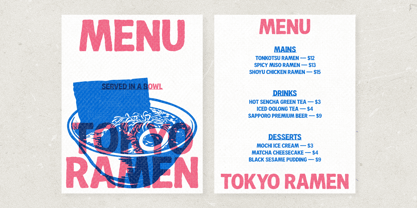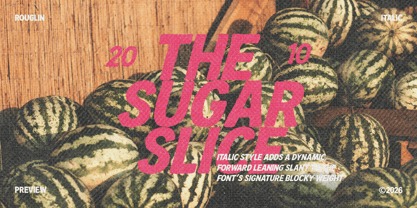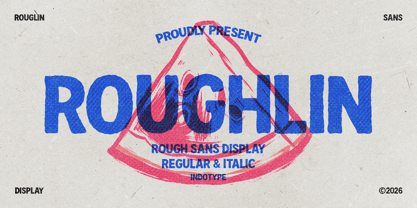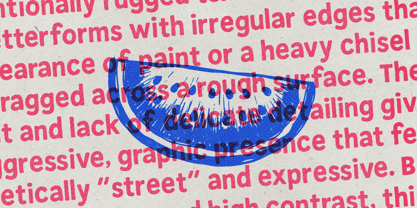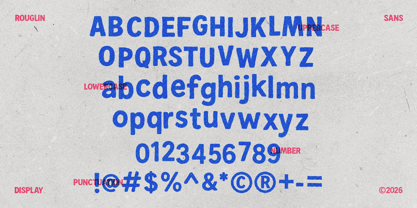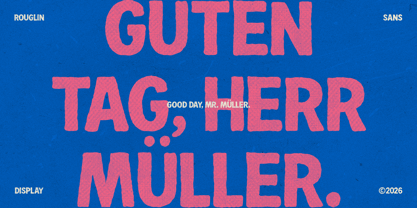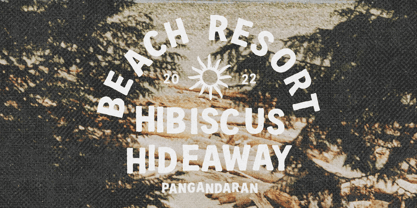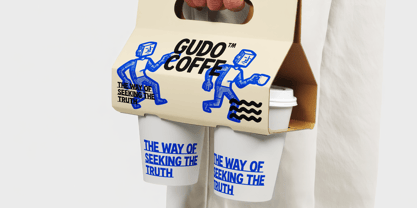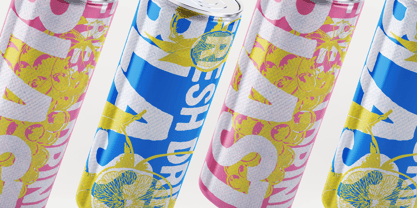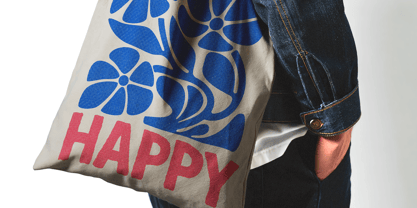
IT Roughlin
por Indotype
La familia tipográfica IT Roughlin fue diseñada por Dede Kurniawan y publicada por Indotype. IT Roughlin contiene 2 estilos y opciones de paquete familiar. Más información sobre esta familia
Roughlin is a bold and unapologetically raw sans-serif display font that captures the gritty, handcrafted energy of urban art and DIY culture. Its distressed edges, irregular textures, and deliberately imperfect strokes give it an authentic, lived-in feel that polished typefaces can't replicate. This is a font with character, attitude, and a story to tell, built for projects that value authenticity over perfection. Available in both a gritty Regular and a dynamic Italic style, Roughlin brings an edge of streetwise credibility and creative rebellion to any design. Perfect for music posters, streetwear branding, editorial layouts with an alternative vibe, and any project that needs to feel real, urgent, and human. It’s not just a typeface—it’s a statement of raw, unfiltered expression. • Ideal for: Music & Gig Posters, Streetwear Branding, Edgy Editorial Design, Creative Logos, Social Media Graphics with Attitude, DIY Project Covers. • Classification: Sans-Serif, Display, Grunge, Textured. • Attributes: Raw, Textured, Gritty, Edgy, Authentic, Rebellious, Urban.